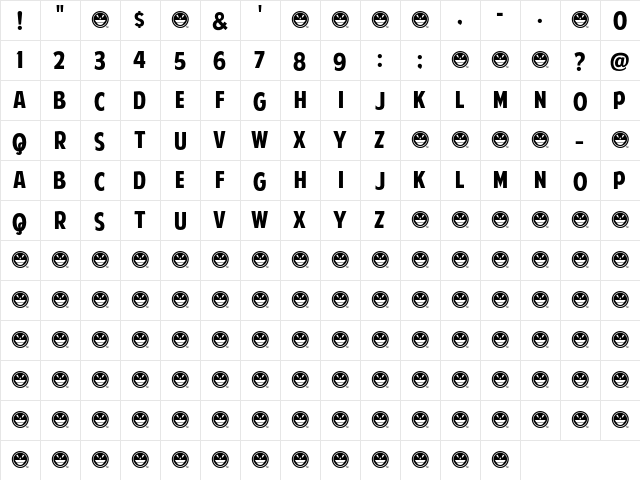
American Purpose Regular
Design Context for American Purpose Typeface
American Purpose offers clean, dependable letterforms without strong stylistic allegiance, making it a practical choice for designers who need flexibility.
Pro Tip: Pair American Purpose with a font of contrasting weight or personality to build a more expressive typographic hierarchy.